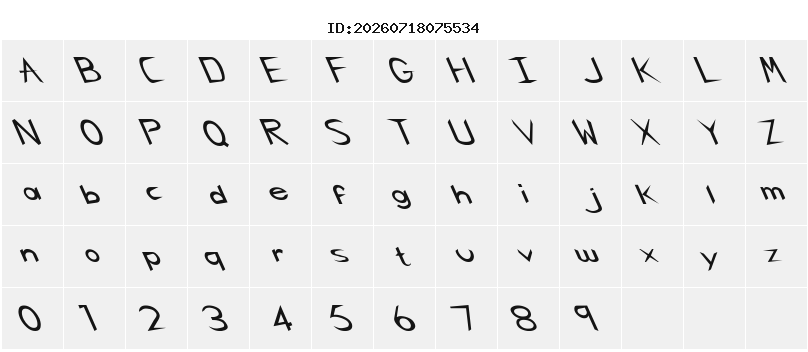
Charlie_ Chan Extreme Lefty Preview
• Font Name: Charlie_ Chan Extreme Lefty
• Full Font Name: Charlie_ Chan Extreme Lefty
About Charlie_ Chan Extreme Lefty.ttf
Charlie_ Chan Extreme Lefty.ttf is a modern, elegant sans-serif font designed for ultimate readability and visual harmony. Perfect for branding, headlines, web design, and print materials.